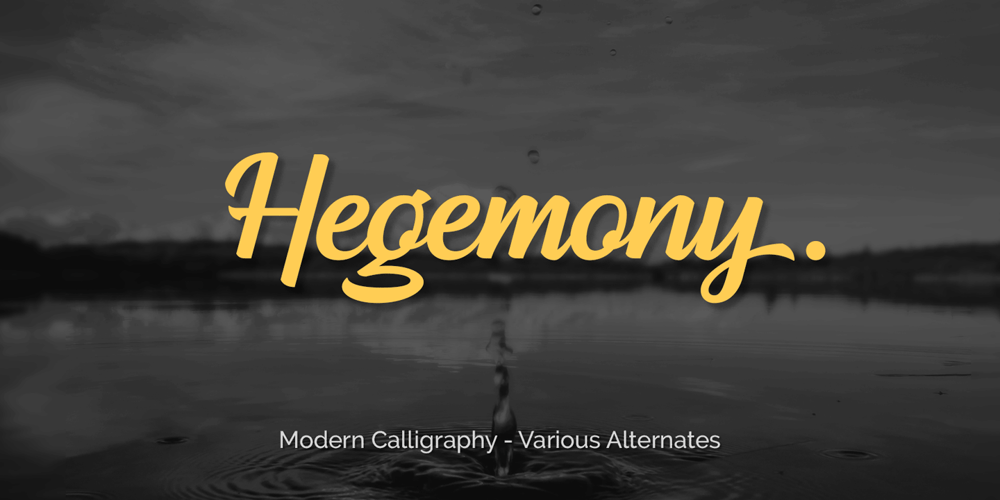
Hegemony Font Family was designed by Abi Karami and published by Akarija Studio. Hegemony contains 1 styles and family package options. Hegemony is an energetic, modern calligraphy typeface which is composed of heavy and clean strokes. Its clean appearance will help you keep the balance of your overall design easier. It is made as a complimentary font that works well with any sans serif font and most design styles for both print and display purpose.Hegemony offers maximum flexibility by its alternates which are available for all uppercase and lowercase characters.Hegemony supports most latin-based alphabets in its Latin Extended-A character set. Its alternate characters and swashes are PUA-Encoded, which make them accessible through Windows/Mac built-in application (Character Map/Font Book).